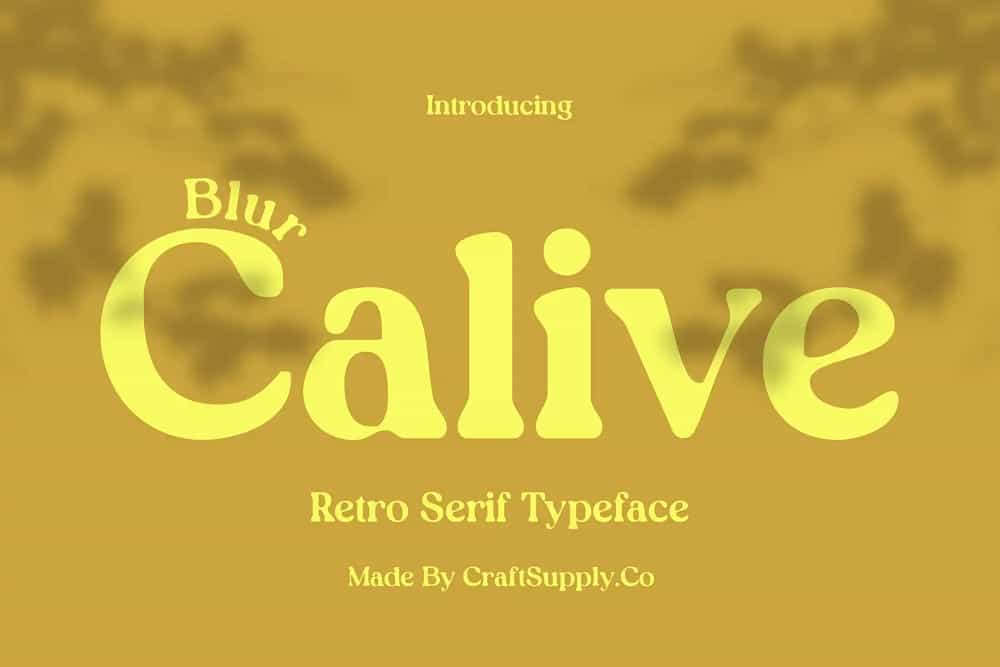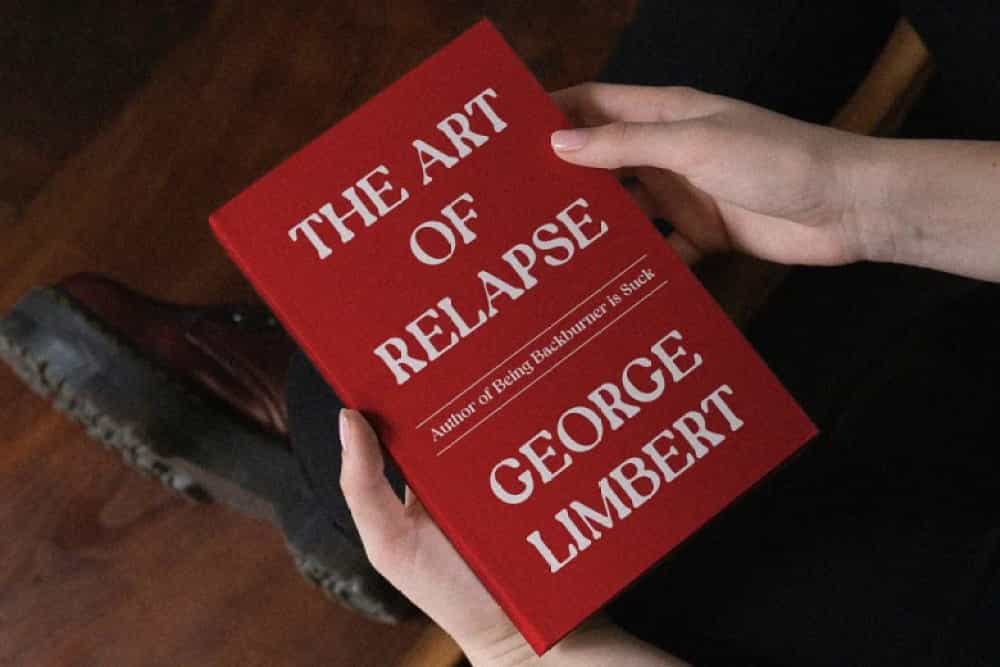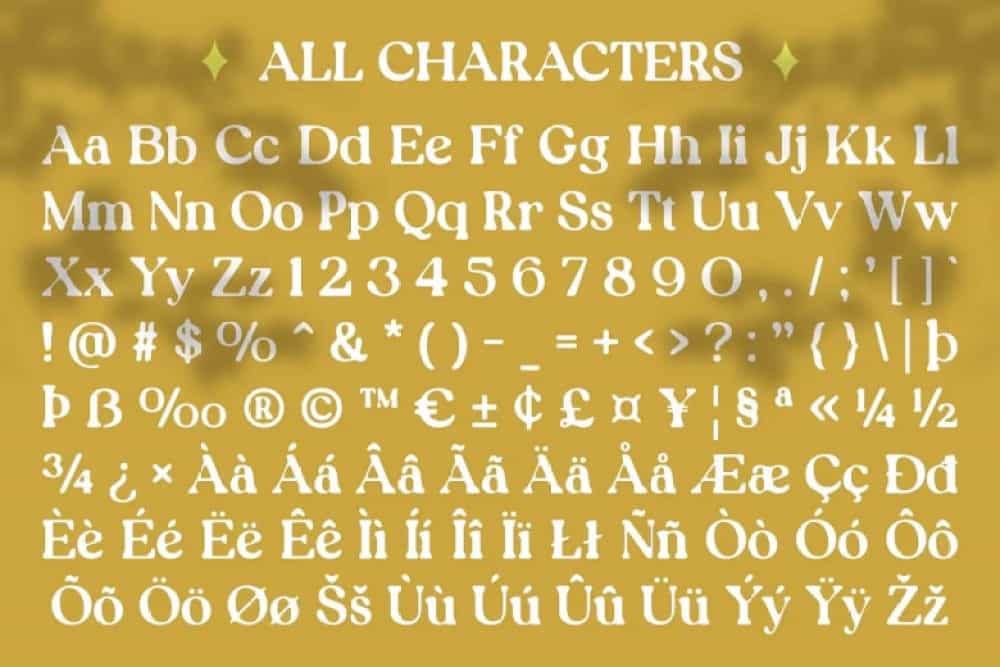
Calive Blur is a retro serif font with the blur effect which will be suitable for designs that want to achieve Antique look with some modernness. Its retro look gives your project a classic feel and guarantees that your message is relevant both in the past and the present.